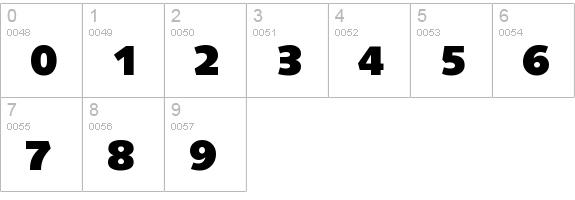
S841-Sans-Ultra-Regular Font Details
S841-Sans-Ultra-Regular is an extreme-weight, display variant in the S841 typeface family \xE2\x80\x94 well suited to extreme display use where maximum visual weight is required.
S841 Sans Ultra Regular font is a versatile and modern typeface that exudes sophistication and elegance. With its clean lines and sharp edges, this font is perfect for a wide range of design projects, from branding to editorial design. Its sleek and professional appearance makes it ideal for conveying a sense of style and professionalism. The S841 Sans Ultra Regular font is available for free download at FontsMarket.com, where you can easily access this high-quality font to enhance your creative projects. Boost your designs with this sleek and stylish typeface, perfect for creating impactful visual content that will leave a lasting impression.